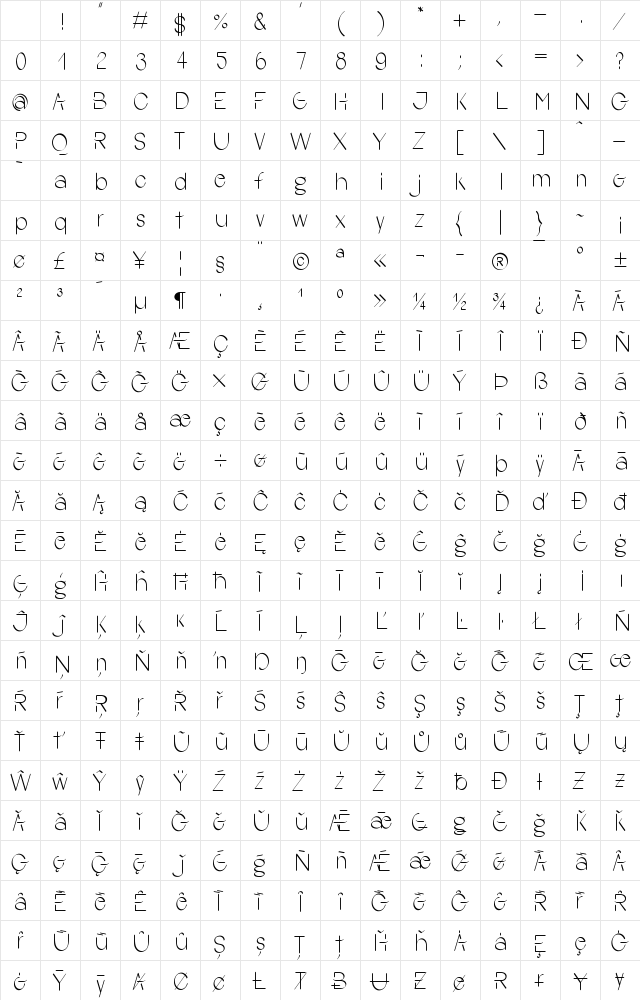
Complete Yoko Smile Regular glyph index. Displaying only characters natively supported by Yoko Smile Regular font.
Yoko Smile is a composed and adaptable typeface that performs quietly and consistently across a wide range of design contexts.